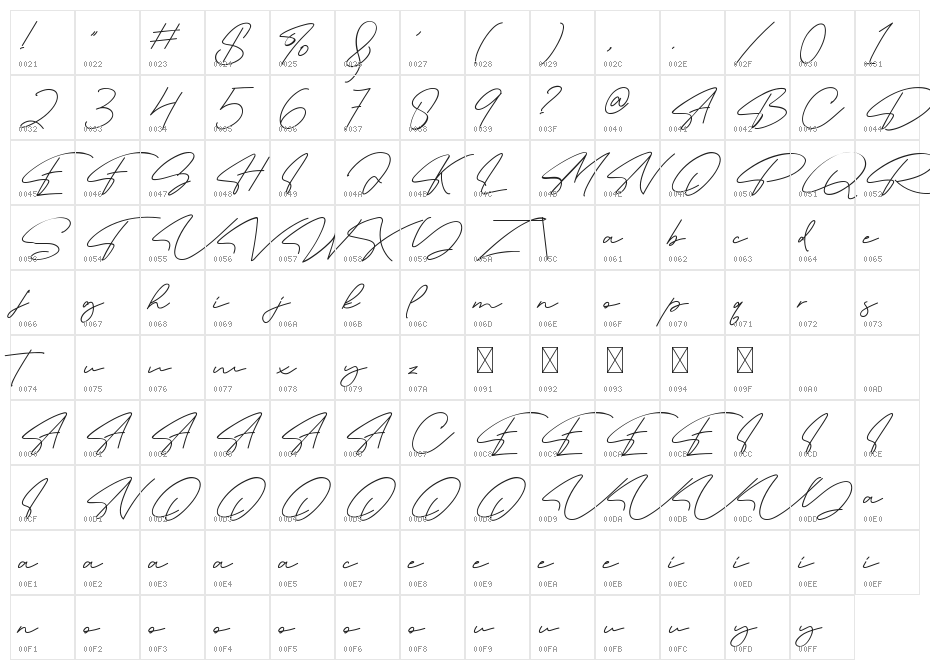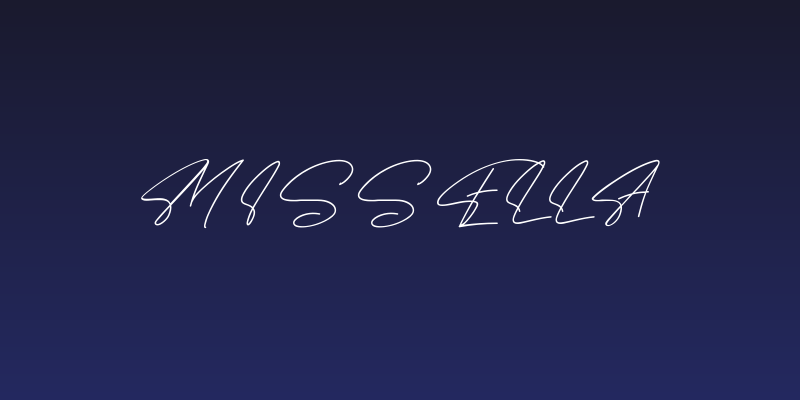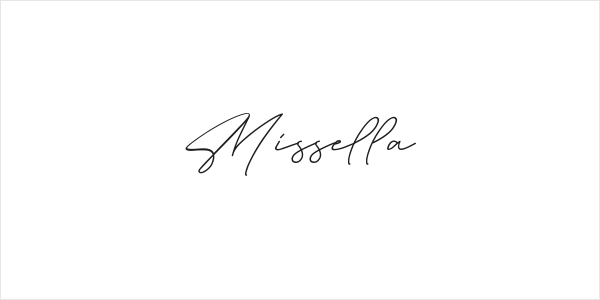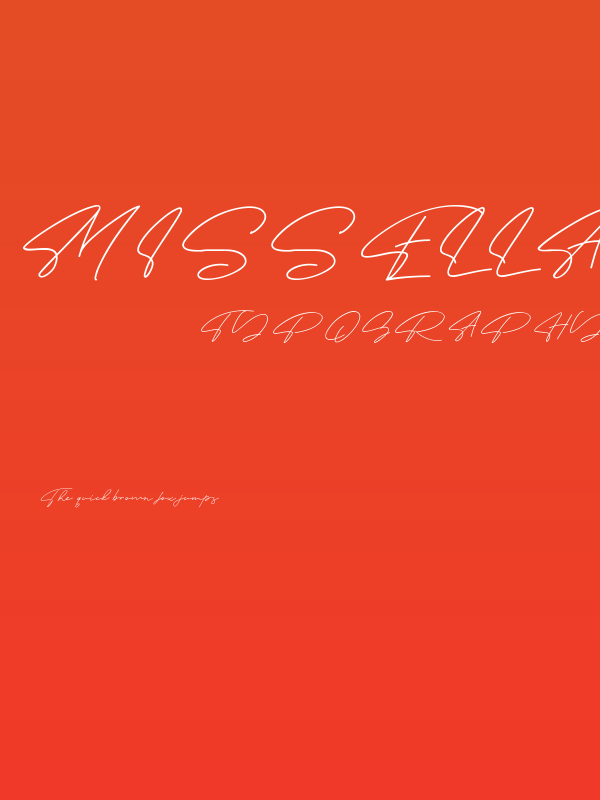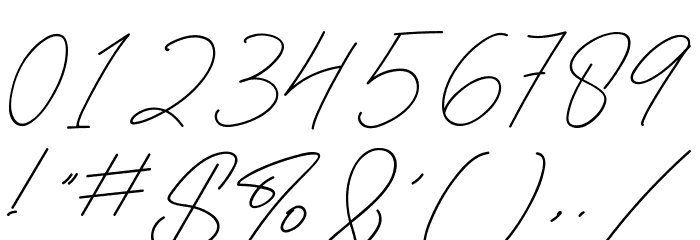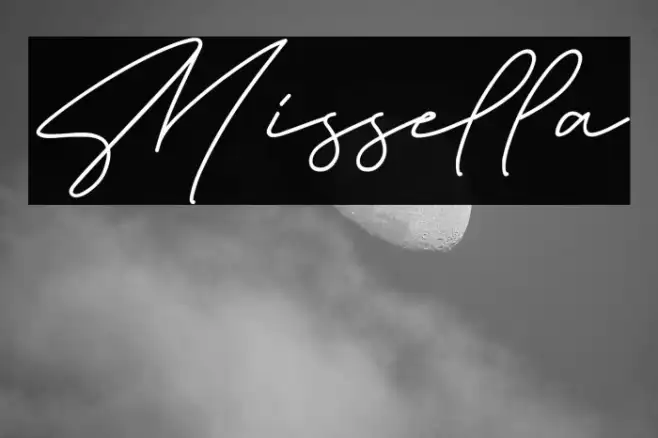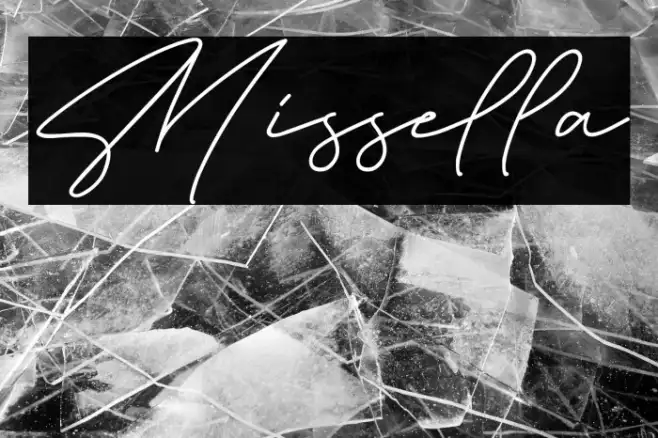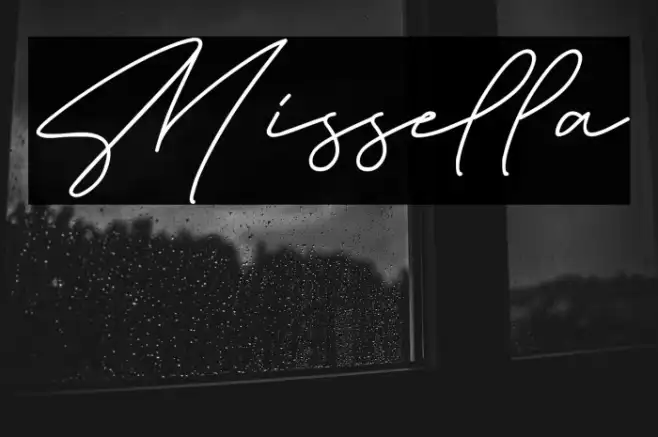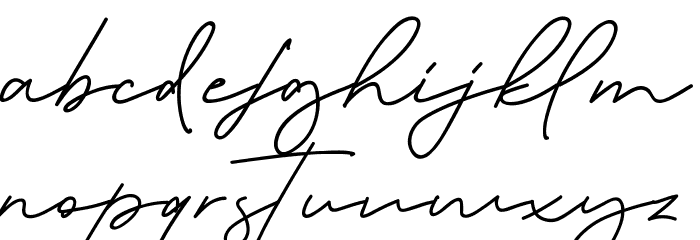
Missella Font
Missella Description
This font features a flowing, cursive style that mimics elegant handwriting. The uppercase letters are slightly slanted with smooth, continuous strokes, giving a sense of fluidity and grace. The lowercase letters maintain this fluidity, with some characters extending below the baseline, adding to the handwritten aesthetic. The numerals are consistent with the overall style, maintaining a balanced and cohesive look. Special characters are designed to match the script's elegance, ensuring uniformity across all glyphs. This font is ideal for projects that require a personal touch or a sophisticated, artistic flair.
| Proposed Projects | Ideal for wedding invitations, greeting cards, personal branding, and artistic projects. |